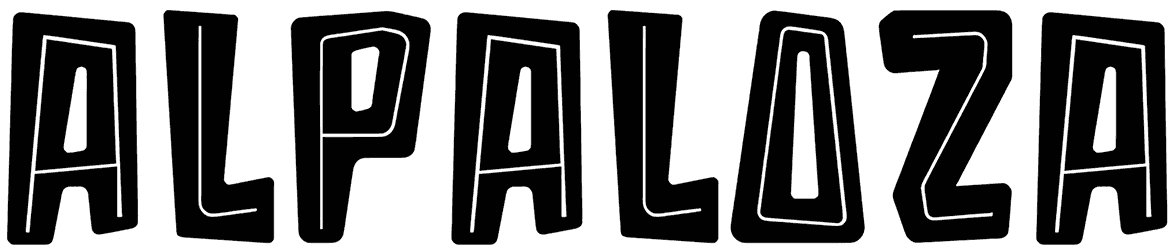
African Culture Font
This rare font has a fun and jovial look and would make a good choice for headlines. Forget all the safe and easy choices and go with African Culture. Tell a unique story and reflect your personality on the screen.
The almost cartoonish vibe of this font makes it an even better candidate for headings in kids’ web applications and such. Dive deeper into the African fonts category and explore more right now.